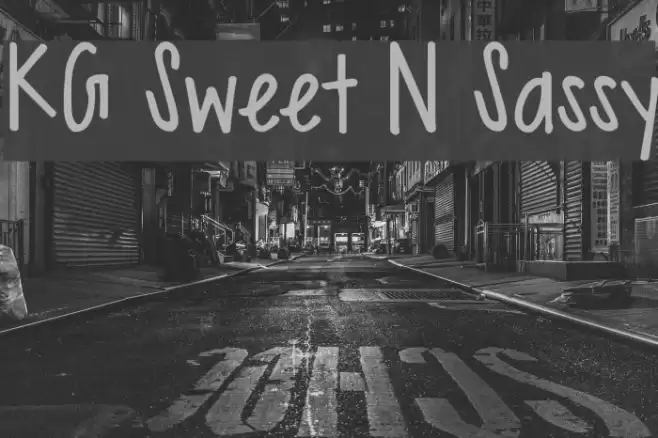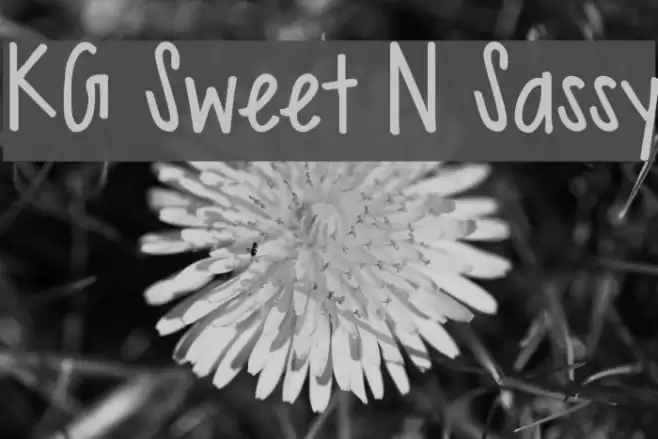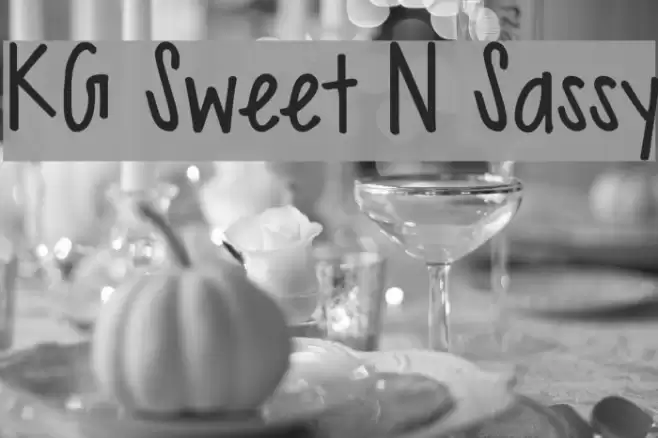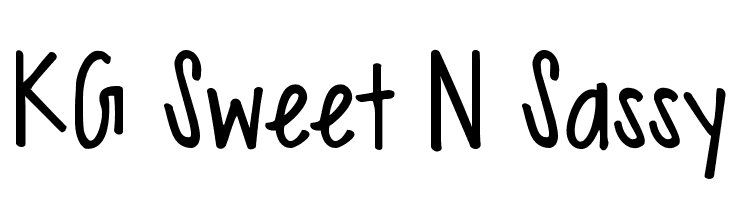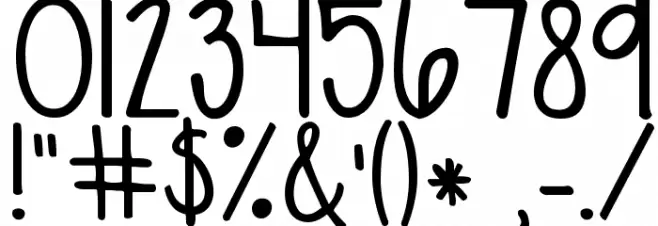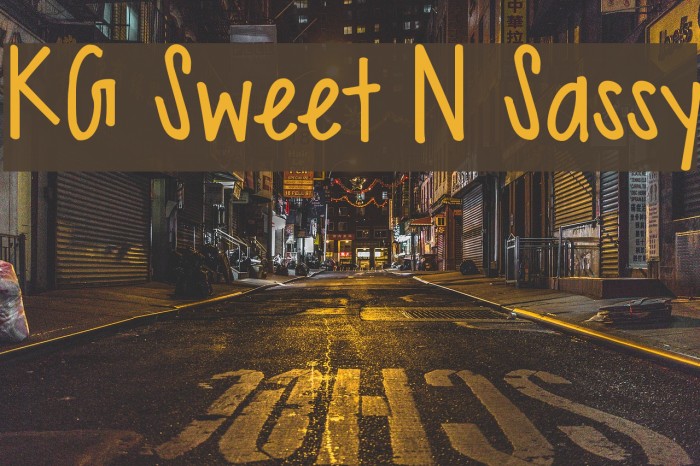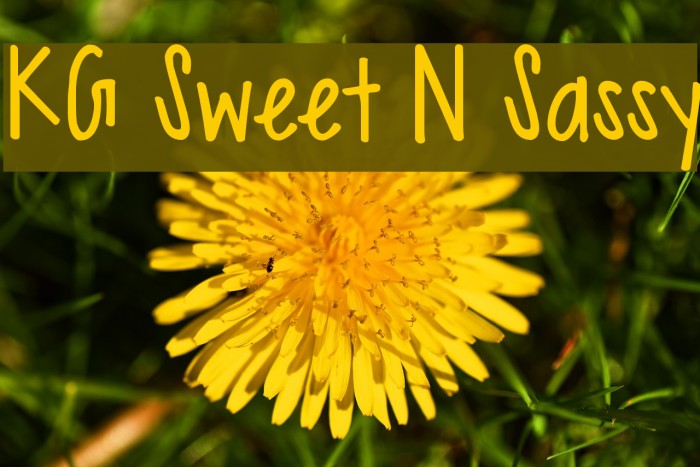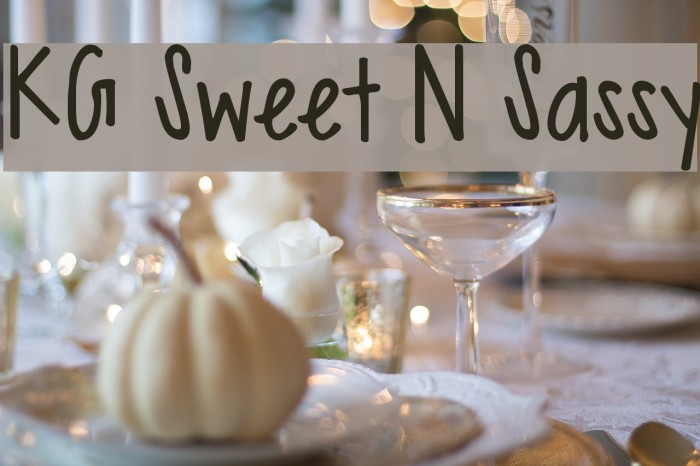
KG Sweet N Sassy Font
KG Sweet N Sassy Description
This playful and whimsical font features a handwritten style with a casual and friendly appearance. The letters are slightly irregular, adding a personal touch that mimics natural handwriting. The uppercase characters are tall and narrow, while the lowercase letters are more rounded and compact. Numbers and special characters maintain the same playful style, making the font versatile for various uses. The strokes are consistent in thickness, providing a uniform look across all characters.
A playful, handwritten font with a casual and friendly appearance from Uncategorized fonts.
- Proposed Projects: Ideal for children's books, greeting cards, playful branding, and social media graphics.
- Overall Style: Casual, Playful
- Use Case: Headlines, Informal text, Creative projects